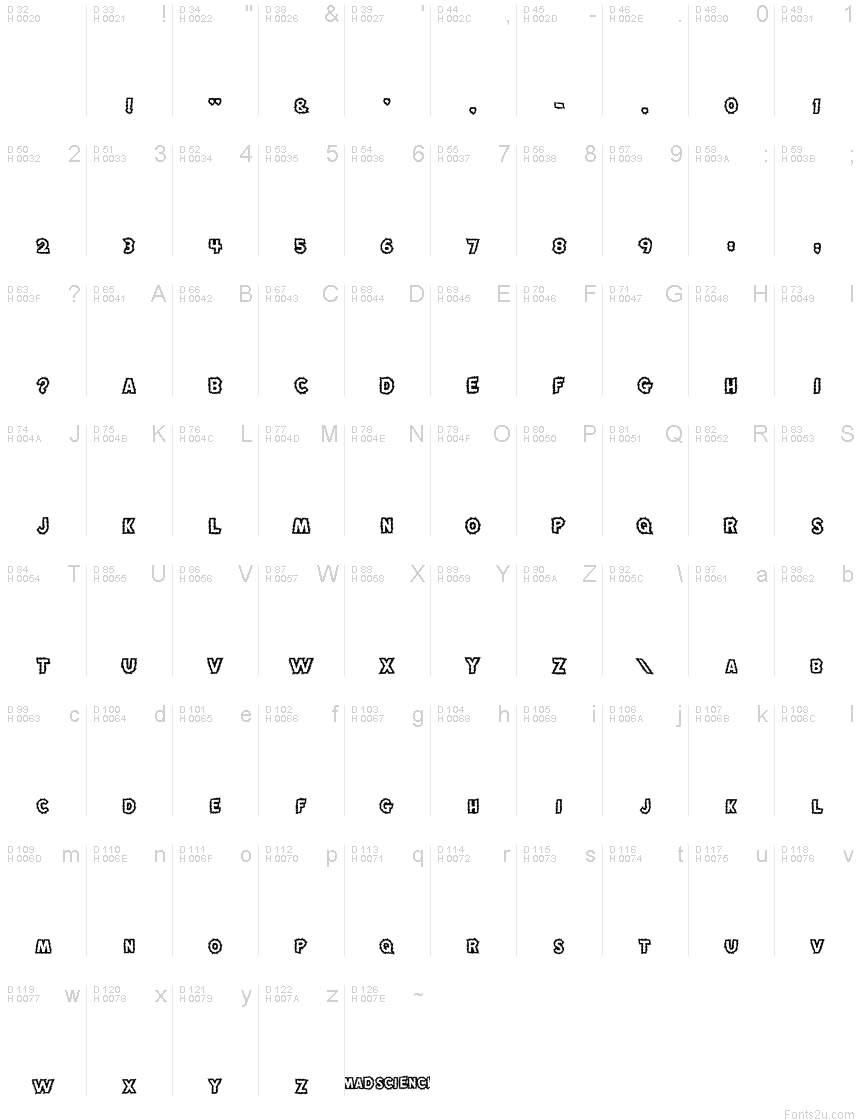
MadScience
Mad Science by Daniel Gauthier of GautFonts is a free distorted display font whose jagged, hairline fringe turns the lettering into a rough electric silhouette. That spiky edge repeats all the way around the forms, so the design feels charged and unstable rather than simply roughened or grungy.
It makes the most sense on horror flyers, Halloween party graphics, arcade-style posters, science-themed event titles, and loud video thumbnails where that buzzing outline can do the talking. Short headings, logo experiments, and sticker-style graphics benefit most, because the shaggy border gives each word a crackling comic-monster presence.
MadScience by J.F.Y.Daniel Gauthier - GautFonts